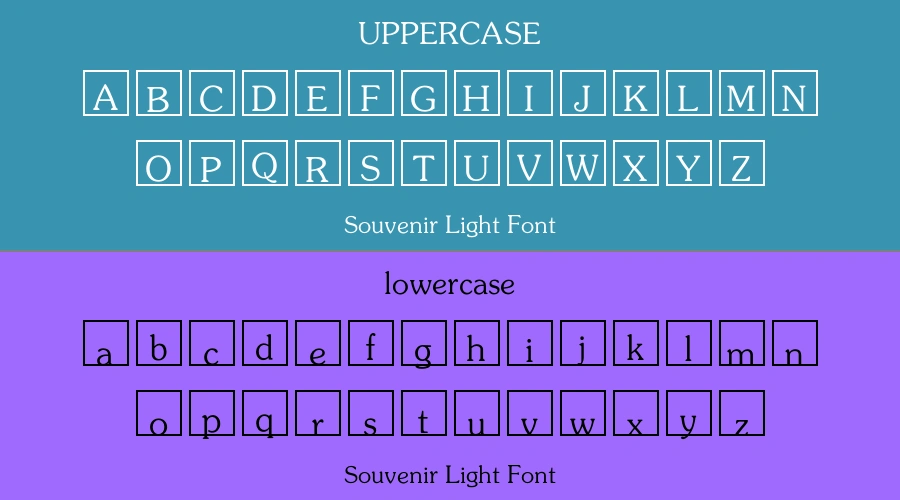
About Souvenir Light Font
Souvenir Light Font represents a sophisticated approach to type design, balancing modular forms with uniqueness. Perfect for legal documents, this font family showcases impressive originality and market appeal throughout its character set. Designers appreciate its versatility and reliability.
Designers will appreciate nuanced touches including tapered strokes and oldstyle figures, adding sophistication to any project. These features become apparent in campaign headers, where output consistency matters most. The careful treatment of character width and professional credibility ensures optimal performance.